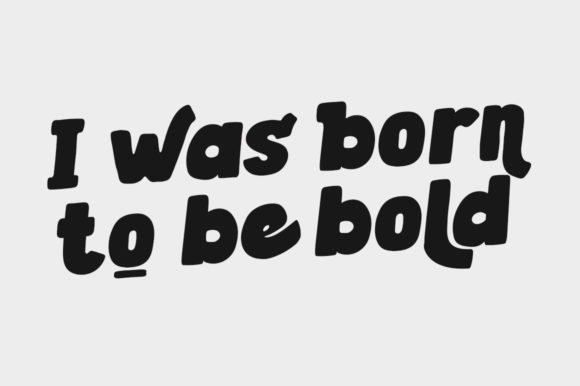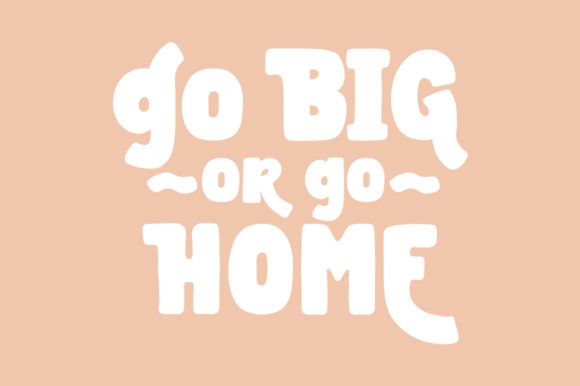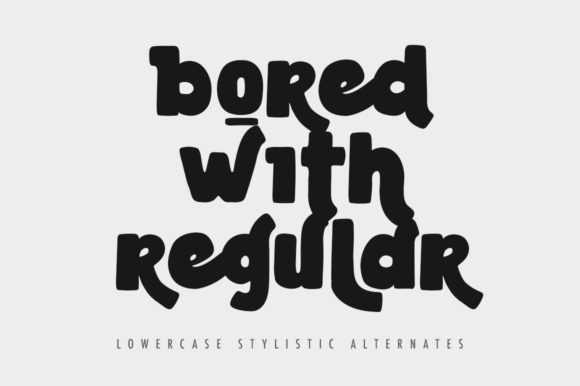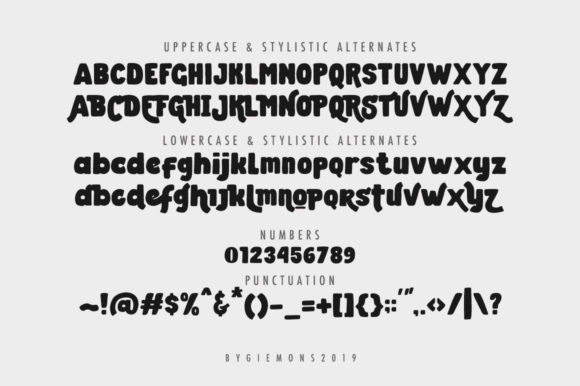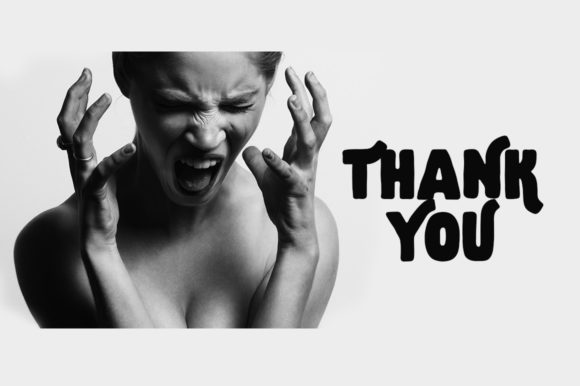
Introducing Be Bold Font: The Ultimate Display Font for Designers and Crafters
Are you looking for a font that can help you make a statement with your designs? Look no further than Be Bold Font, a cool and thick lettered display font that’s perfect for conveying bold messages. With Be Bold, you can add a touch of professionalism and style to your designs, making it ideal for a wide range of applications.
What is Be Bold Font?
Be Bold Font is a display font designed to help you create stunning visuals that grab attention. Its thick, bold letters make it perfect for use in headlines, titles, and other display text. Whether you’re a designer, crafter, or DIY enthusiast, Be Bold Font is a versatile tool that can help you add a professional touch to your work.
Key Features of Be Bold Font
- Cool and Thick Lettered: Be Bold Font features thick, bold letters that are sure to make a statement.
- Display Font: Designed specifically for display text, Be Bold Font is perfect for headlines, titles, and other attention-grabbing applications.
- Versatile: Be Bold Font can be used for a wide range of applications, from logos and labeling to clothing and movie scenes.
Uses for Be Bold Font
Be Bold Font is a versatile font that can be used in a variety of applications, including:
- Logos: Create professional-looking logos for your business or brand.
- Labeling: Add a touch of style to your labeling with Be Bold Font.
- Clothing: Use Be Bold Font to create eye-catching designs for t-shirts, hoodies, and other clothing items.
- Movie Scenes: Add a professional touch to your movie scenes with Be Bold Font.
- Posters: Create stunning posters that grab attention with Be Bold Font.
- Movie Titles: Use Be Bold Font to create bold and eye-catching movie titles.
- Gigs: Add a touch of style to your gig posters with Be Bold Font.
- Album Covers: Create professional-looking album covers with Be Bold Font.
Benefits of Using Be Bold Font
There are many benefits to using Be Bold Font in your designs, including:
- Attention-Grabbing: Be Bold Font is designed to grab attention, making it perfect for display text.
- Professional Look: Be Bold Font adds a professional touch to your designs, making them look more polished and put-together.
- Versatility: Be Bold Font can be used in a wide range of applications, making it a versatile tool for designers and crafters.
Tips for Using Be Bold Font
Here are a few tips for getting the most out of Be Bold Font:
- Use it Sparingly: Be Bold Font is designed to make a statement, so use it sparingly to avoid overwhelming your design.
- Pair it with Other Fonts: Be Bold Font pairs well with other fonts, so don’t be afraid to experiment with different combinations.
- Experiment with Colors: Be Bold Font looks great in a variety of colors, so experiment with different colors to find the one that works best for your design.
| Font Name | Be Bold Font |
| Author | Giemons |
Be Bold Font is a powerful tool for designers and crafters looking to add a professional touch to their work. With its cool and thick lettered design, Be Bold Font is perfect for a wide range of applications, from logos and labeling to clothing and movie scenes. Whether you’re a seasoned designer or just starting out, Be Bold Font is a versatile and easy-to-use font that’s sure to help you make a statement.